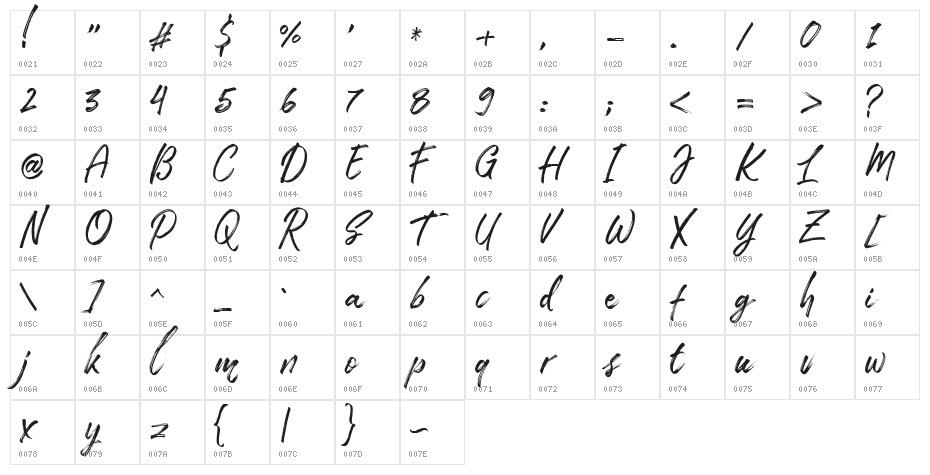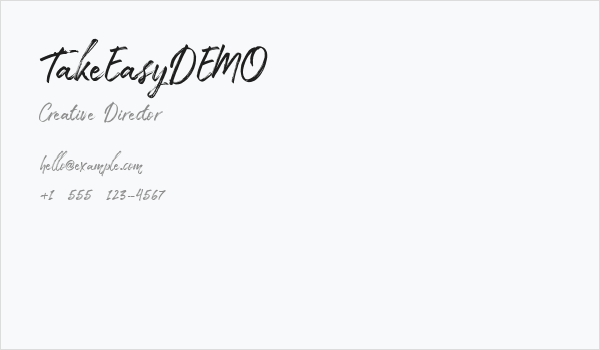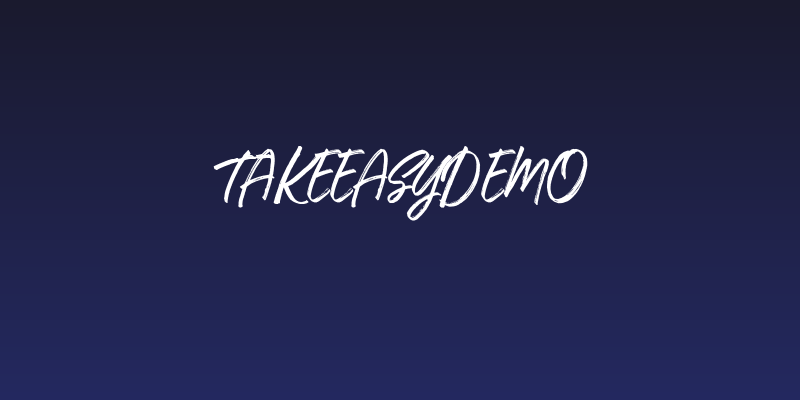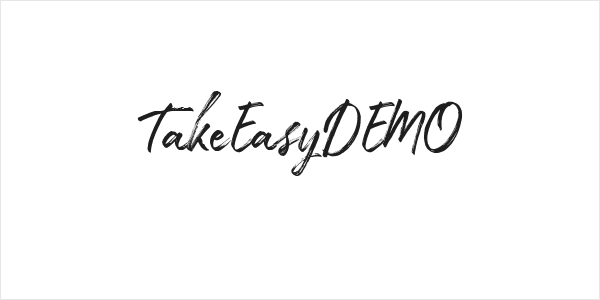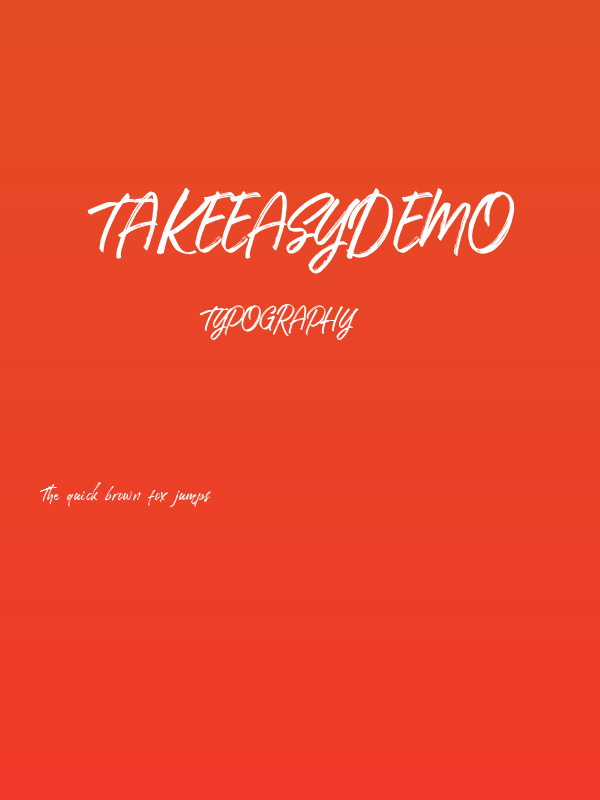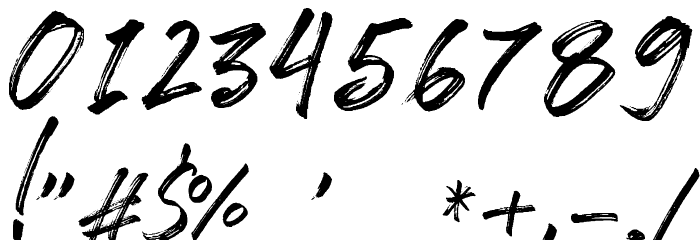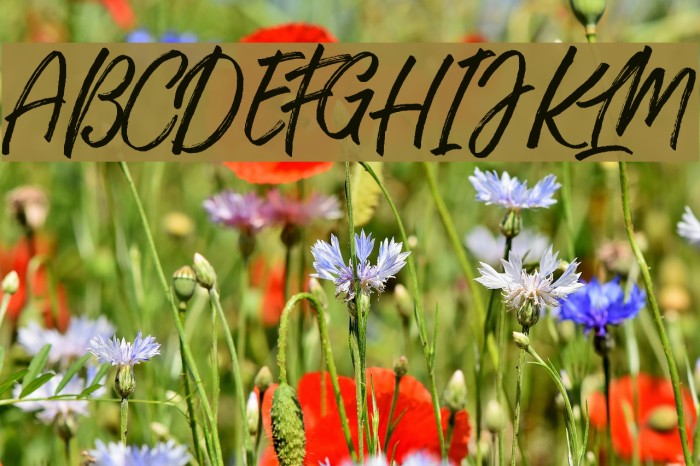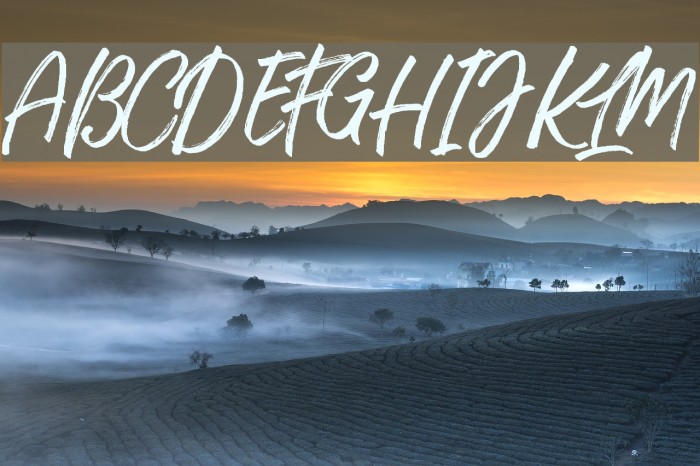
TakeEasyDEMO Font
TakeEasyDEMO Description
This font features a dynamic and expressive handwritten style, characterized by bold, sweeping strokes and a slightly rough texture that adds a sense of energy and movement. The uppercase and lowercase letters maintain a consistent flow, with some letters extending beyond the baseline, creating a lively rhythm. The numerals and special characters are equally bold, maintaining the same energetic style. This font's unique brush-like appearance makes it stand out, offering a sense of creativity and spontaneity.
| Proposed Projects | Ideal for creative projects such as posters, branding, and social media graphics where a bold, artistic statement is needed. |